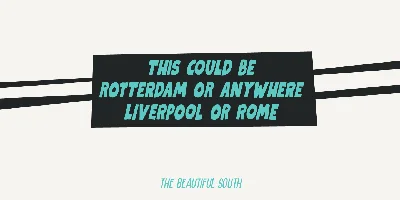
Kapsalon Font
Kapsalon Font is ideal for modern hair salons, trendy barbershop branding, contemporary beauty parlors, stylish grooming services, fashion-forward styling studios, urban beauty centers, chic hairdressing boutiques, and sophisticated personal care communications.
What makes Kapsalon Font truly exciting is its stylish ability to capture the essence of contemporary grooming culture and fashionable personal styling through elegantly crafted letterforms that embody the sophistication and creative flair of modern salon experiences. This chic typeface features sleek characteristics with subtle styling influences that instantly convey professionalism, creative expertise, and fashion-forward thinking, making it the perfect choice for beauty businesses celebrating personal transformation, embracing contemporary style trends, and communicating with clients who value exceptional grooming services and cutting-edge aesthetic innovation.
The Kapsalon Font family includes regular, light, bold, and stylized script variations, complemented by beauty-inspired ornaments and grooming alternates that enhance the salon atmosphere, providing designers with comprehensive tools for creating fashionable brand experiences and styling communications that resonate with beauty-conscious audiences seeking professional grooming excellence and contemporary aesthetic services.
Beauty salons and grooming professionals will discover that Kapsalon Font transforms ordinary business messaging into compelling invitations that attract style-conscious clients seeking exceptional personal care and contemporary beauty services. This versatile typeface excels in both intimate salon applications and bold beauty marketing campaigns, maintaining its stylish character while building trust across all grooming contexts.
The font's fashionably crafted construction demonstrates exceptional attention to both aesthetic appeal and professional presentation, with carefully balanced proportions that ensure elegant presence while maintaining excellent readability in modern beauty environments. From salon window displays to beauty product packaging, this stylish typeface maintains its contemporary appeal while providing the sophistication needed for comprehensive beauty business applications. Modern beauty brands appreciate how this font effortlessly communicates style expertise, creative flair, and distinguished American contemporary beauty design excellence through superior salon-inspired typography.